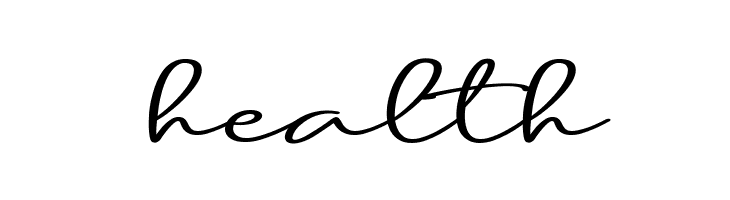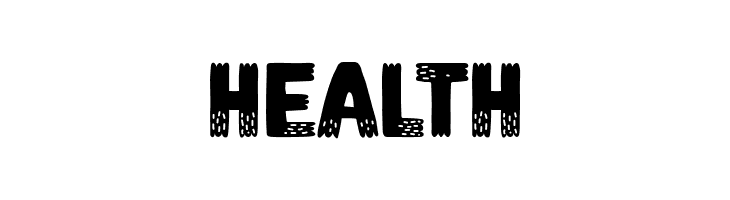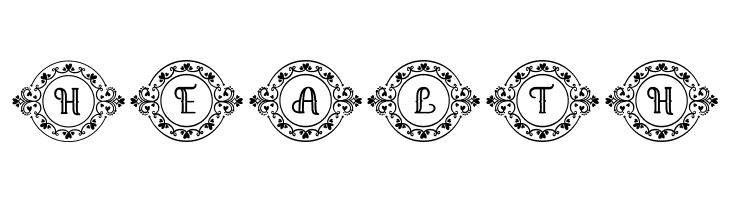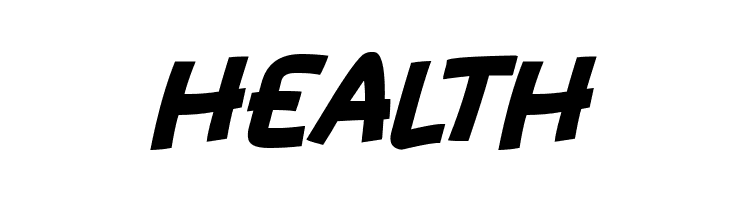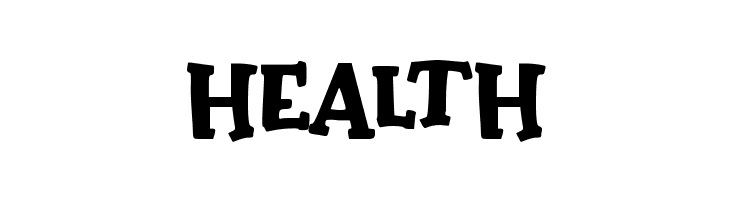
A classic, elegant script font with flowing, cursive letterforms and ornate details.
A whimsical and elegant script font with flowing, cursive letters.
A modern, geometric font with rounded edges and a sleek design.
A playful, casual handwritten font with smooth flow and rounded edges.
A dynamic handwritten font with fluid strokes and natural flow.
An elegant and flowing script font with smooth, cursive strokes.
A bold, playful font with rounded, hand-drawn characters.
A playful, bold handwritten font with rounded strokes and a casual style.
A delicate, flowing script font with elegant, elongated letterforms.
A bold, handcrafted font with a playful, cut-out style.
A playful, hand-drawn font with bold, rounded strokes and whimsical character.
A bold, playful font with rounded, cartoonish characters.
A bold, playful font with a whimsical, cartoonish style.
A playful, bubbly font with a bold, cartoonish style and three-dimensional highlights.
A bold, playful font with a distinctive shadow effect and cartoonish style.
A bold, playful script font with a handwritten, artistic flair.
A bold, playful font with thick outlines and a cartoonish style.
A bold, playful font with a quirky, cartoonish style.
A playful, bold font with a cartoon-like style and textured base.
A bold, playful font with a hand-drawn, cartoonish style.
A bold, playful font with a hand-drawn, cartoon-like style.
A bold, playful font with a cartoonish and informal style.
A bold, playful handwritten font with a casual and friendly style.
A bold, playful font with a cartoon-like style and rounded characters.
A playful, bold font with quirky, exaggerated shapes and a cartoonish style.
A playful, bold font with rounded edges and a cartoonish style.
A bold, outlined font with a playful, cartoon-like style.
A bold, playful font with thick outlines and a cartoonish style.
A bold, hand-drawn font with a playful and cartoonish style.
A bold, playful font with a hand-drawn, cartoonish style.
A bold, playful font with thick, rounded strokes and a cartoonish style.
A bold, playful font with cartoonish, uneven strokes and a lively appearance.
A bold, playful font with a cartoonish style and rounded characters.
A playful, bold font with rounded, thick strokes and a cartoonish style.